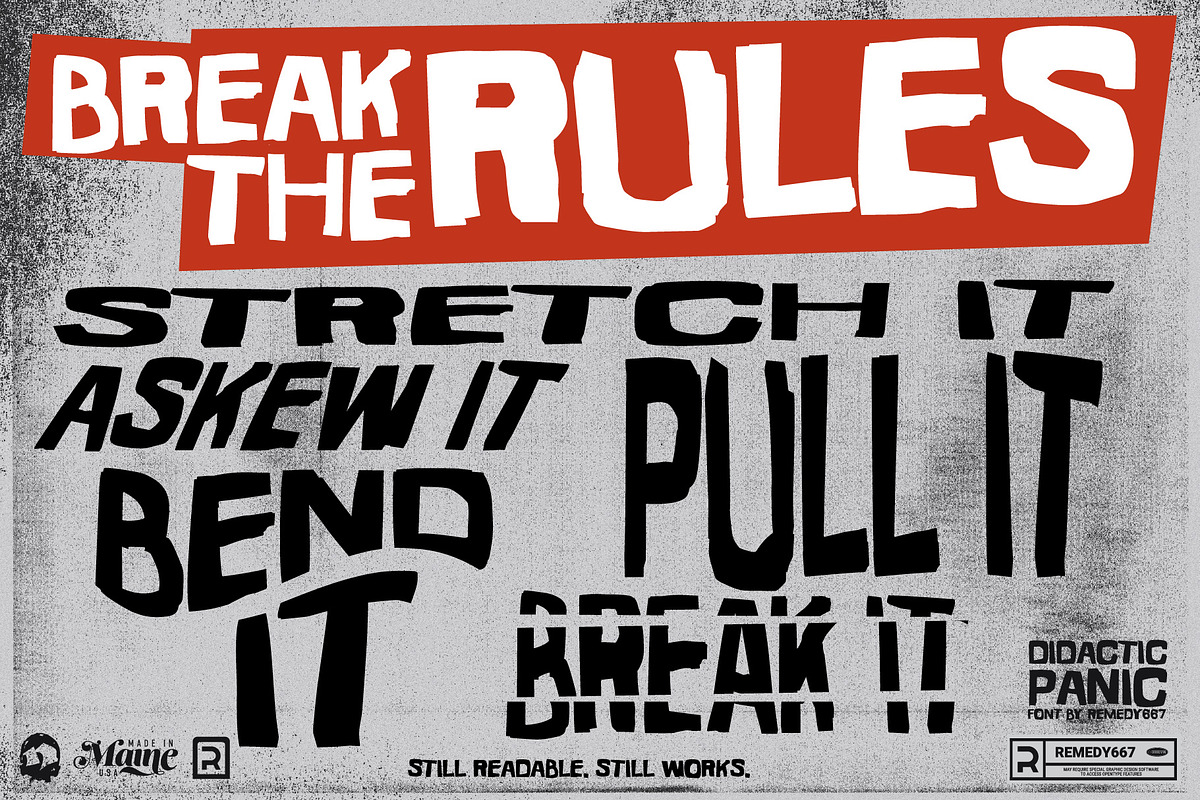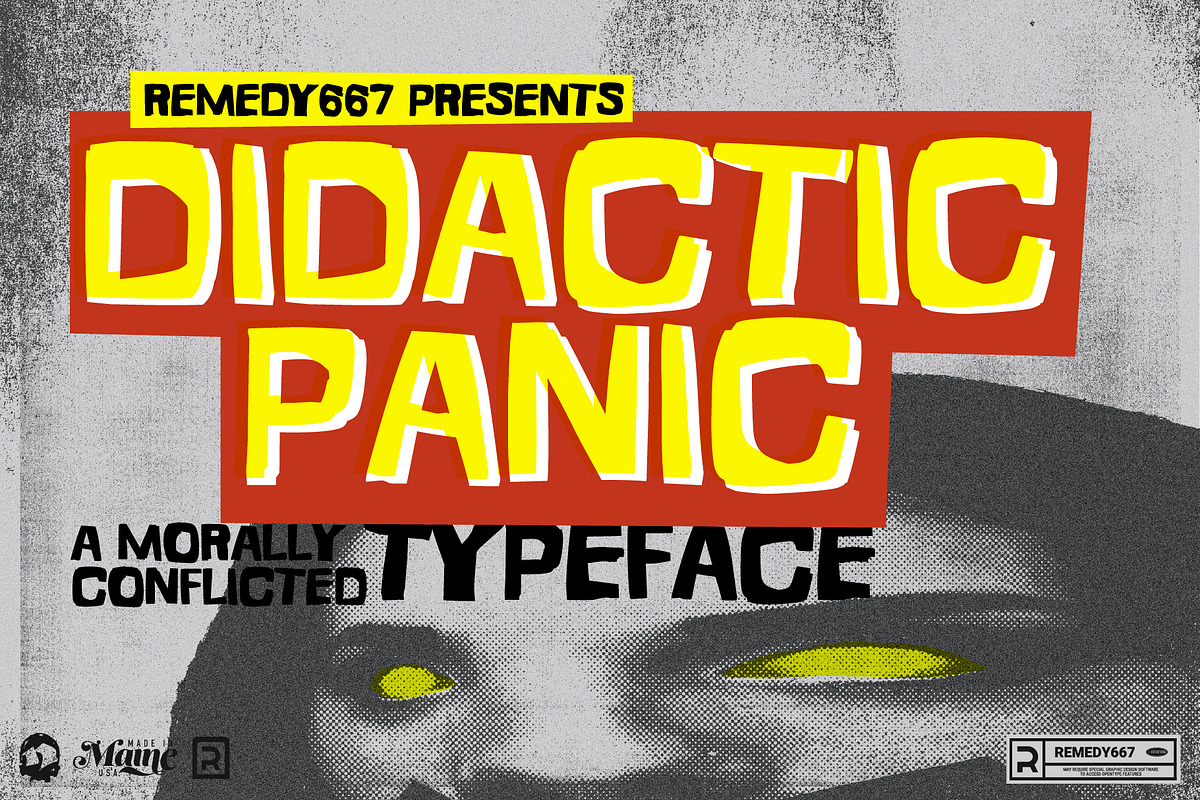
Didactic Panic
Didactic Panic is a chunky hand-drawn typeface with heavy contrast and a lot of personalities. It’s perfect for designers who like to break the rules and stand out from the rest. Didactic Panic has no rules. Bend it, stretch it, break it… get creative with your copy, and break all the typical rules of design. Use it as an unfair advantage to crush the competition with your own personal touch!